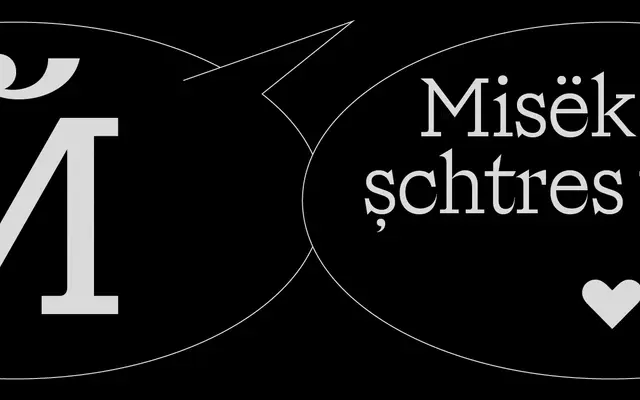
A geometric slab with high-contrast letterforms and square serifs, designed as a companion to Interval Type's grotesque family Riegla.
Riegraf takes the construction logic of a geometric grotesque and applies it to a slab serif framework, pairing high-contrast letters with low-contrast numerals that read almost as sans-serif. The result is a 10-style family spanning Light to Black with matching italics, offering alternate uppercase and lowercase characters in italic cuts. Extended Latin and Cyrillic coverage makes it viable across a broad range of European languages.
Riegraf uses square slab serifs with a geometric construction influenced by grotesque sans-serifs, blending high-contrast letterforms with low-contrast numerals and currencies in a style the foundry calls a Geometric Fusion Serif.